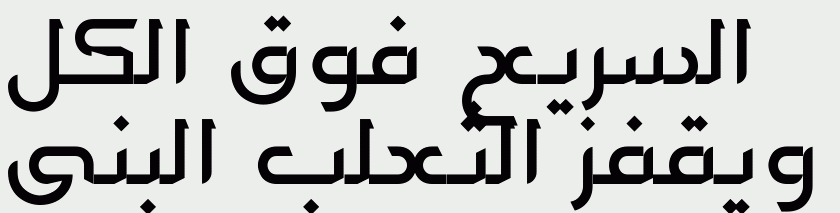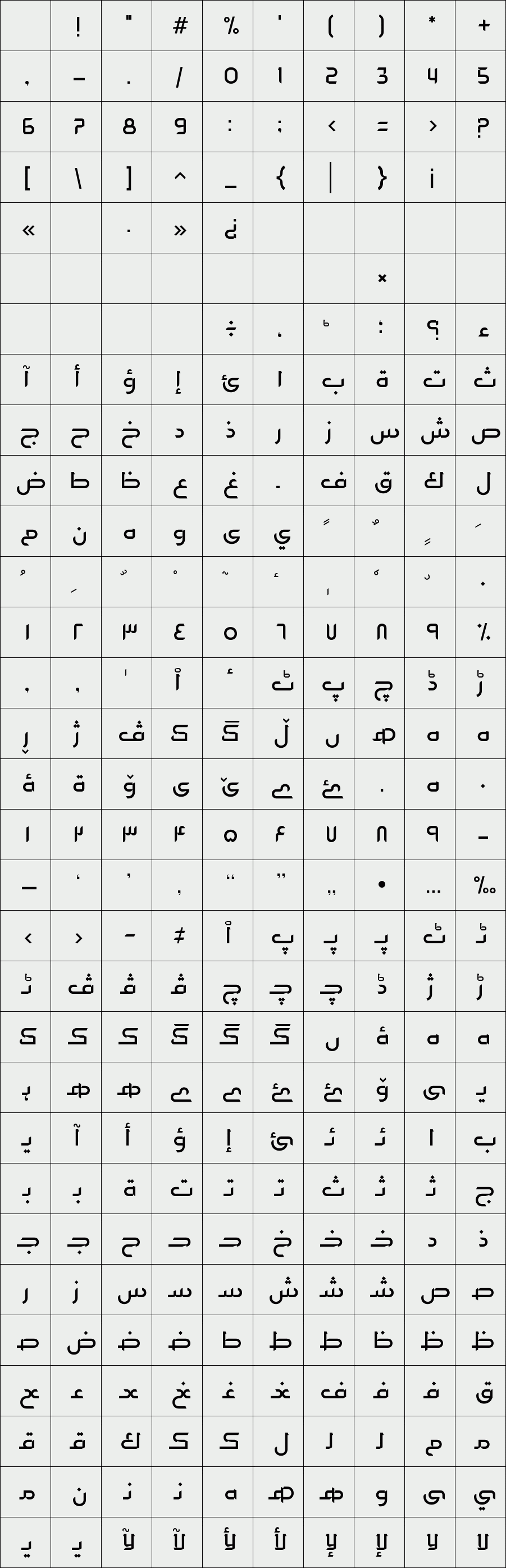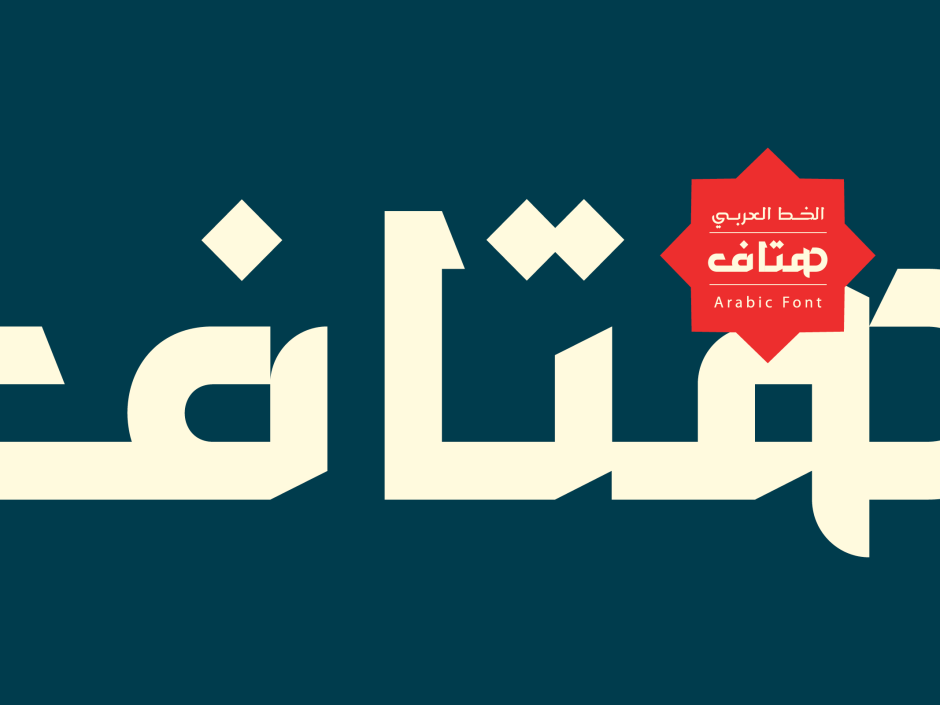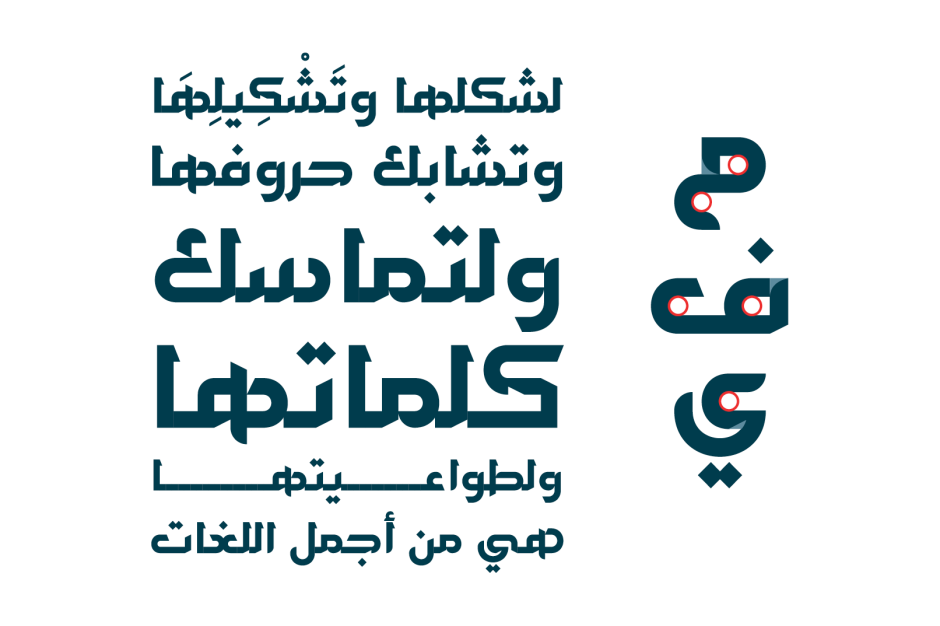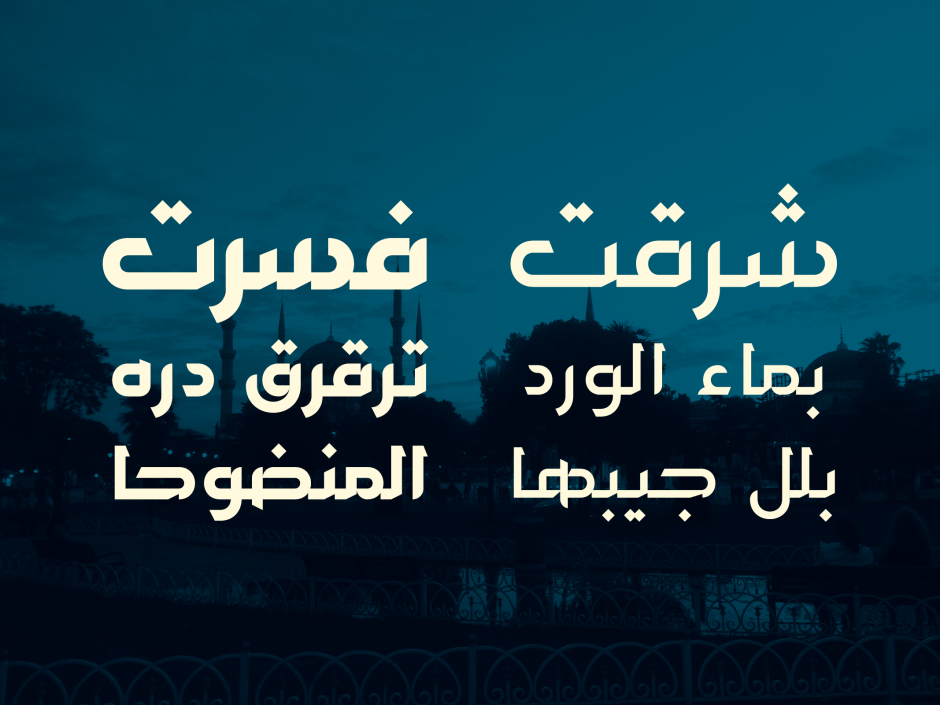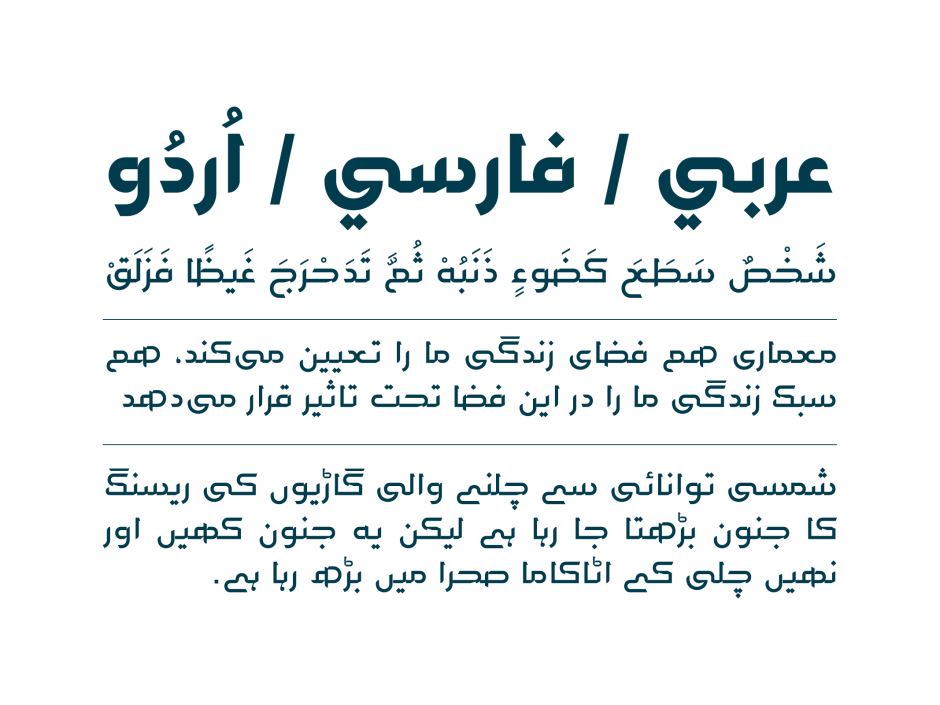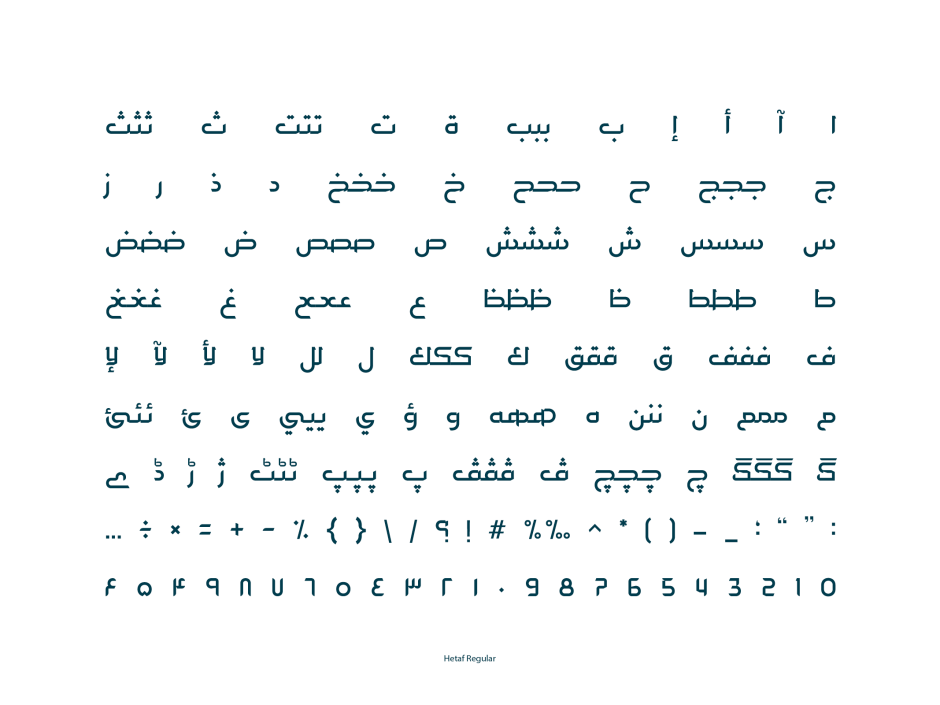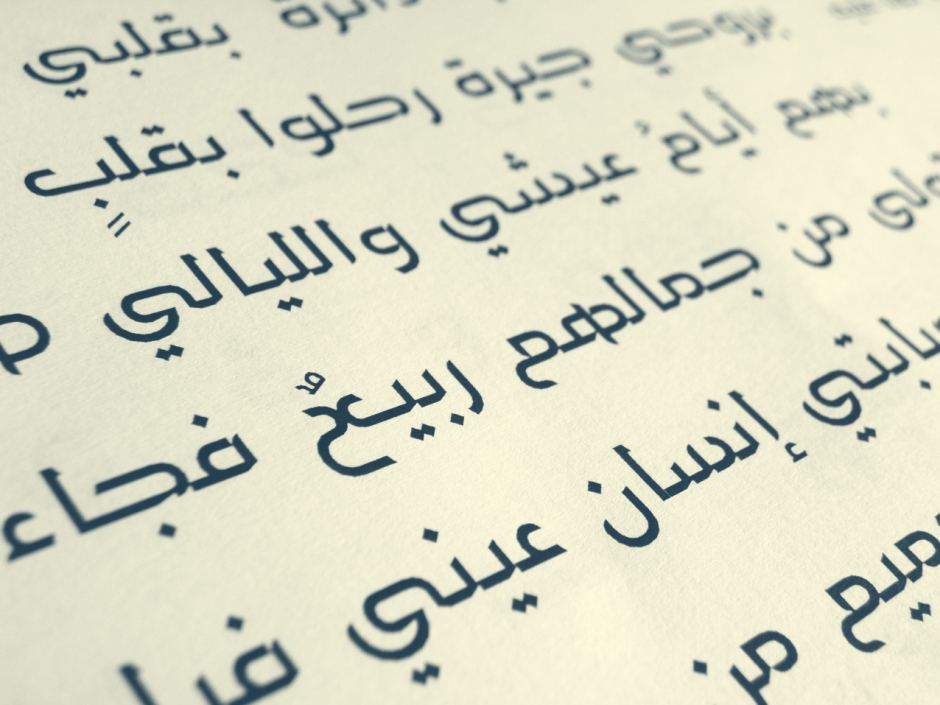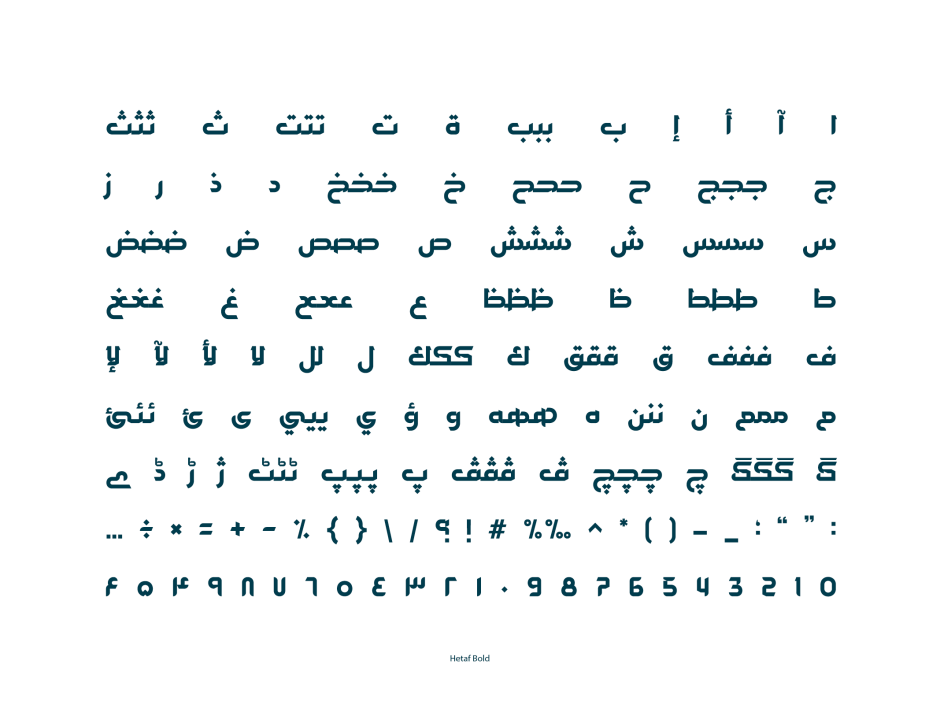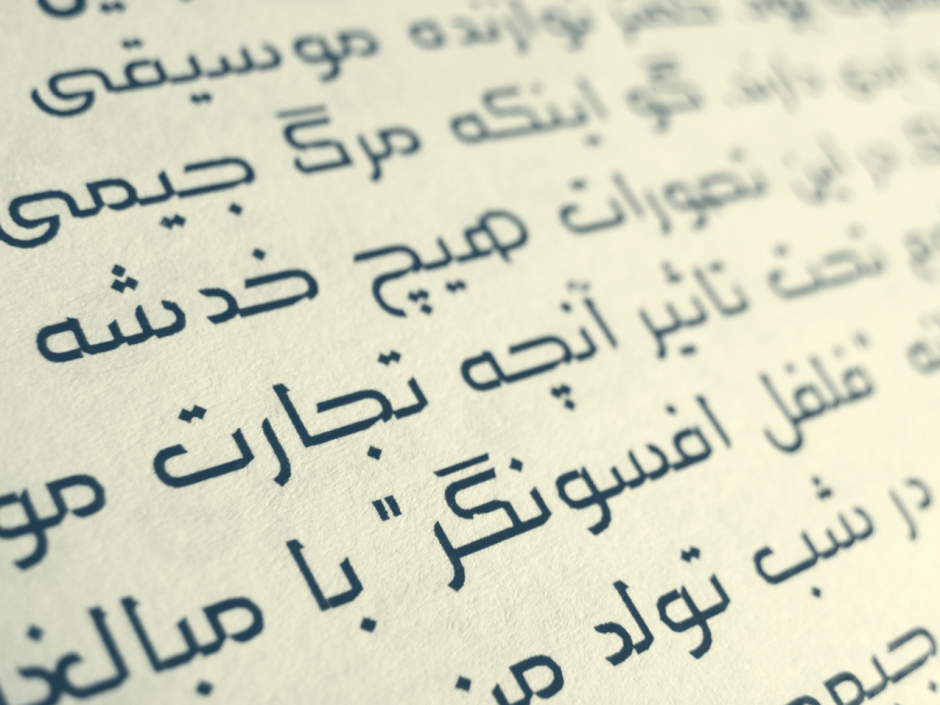
Hetaf
Hetaf is an Arabic typeface that provides a diverting but enjoyable readability experience. Letters combine notches and honed edges, and they do not completely follow the traditional directions of Arabic scripting. The typeface suits both print and web, and it consists of two weights; regular and bold.